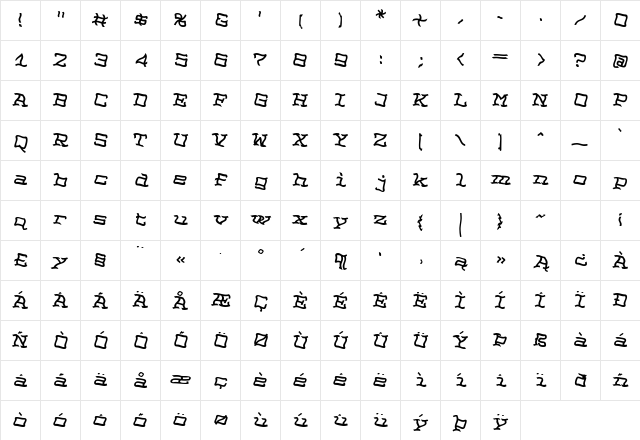
NoPainRight Bold Free Font
NoPainRight Bold
Design Context for NoPainRight
NoPainRight is a composed and adaptable typeface that performs quietly and consistently across a wide range of design contexts. Its bold stroke weight gives it real presence on the page.